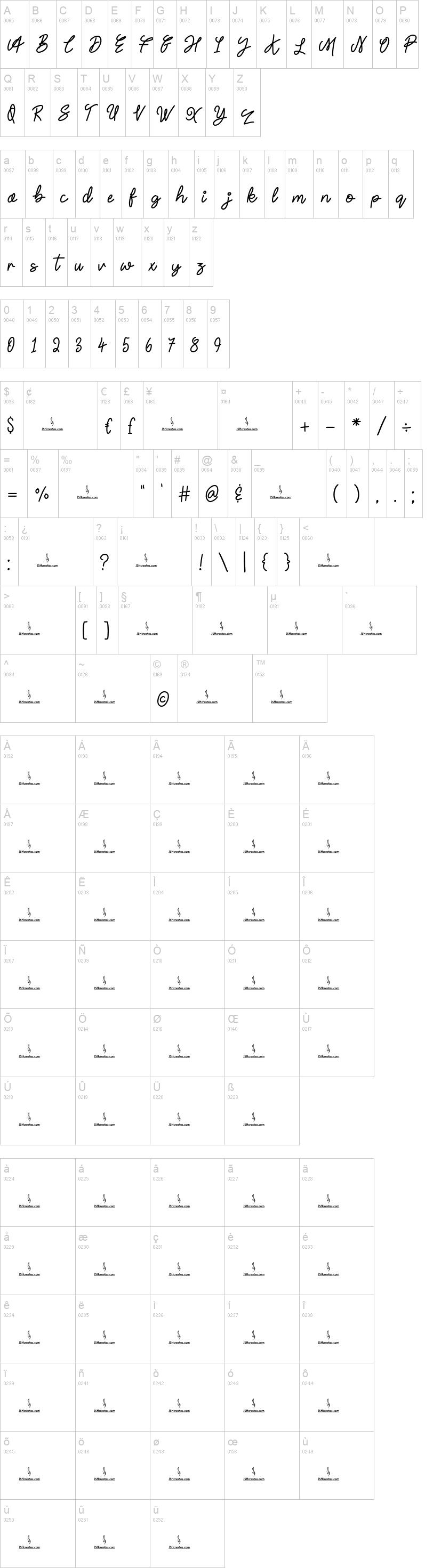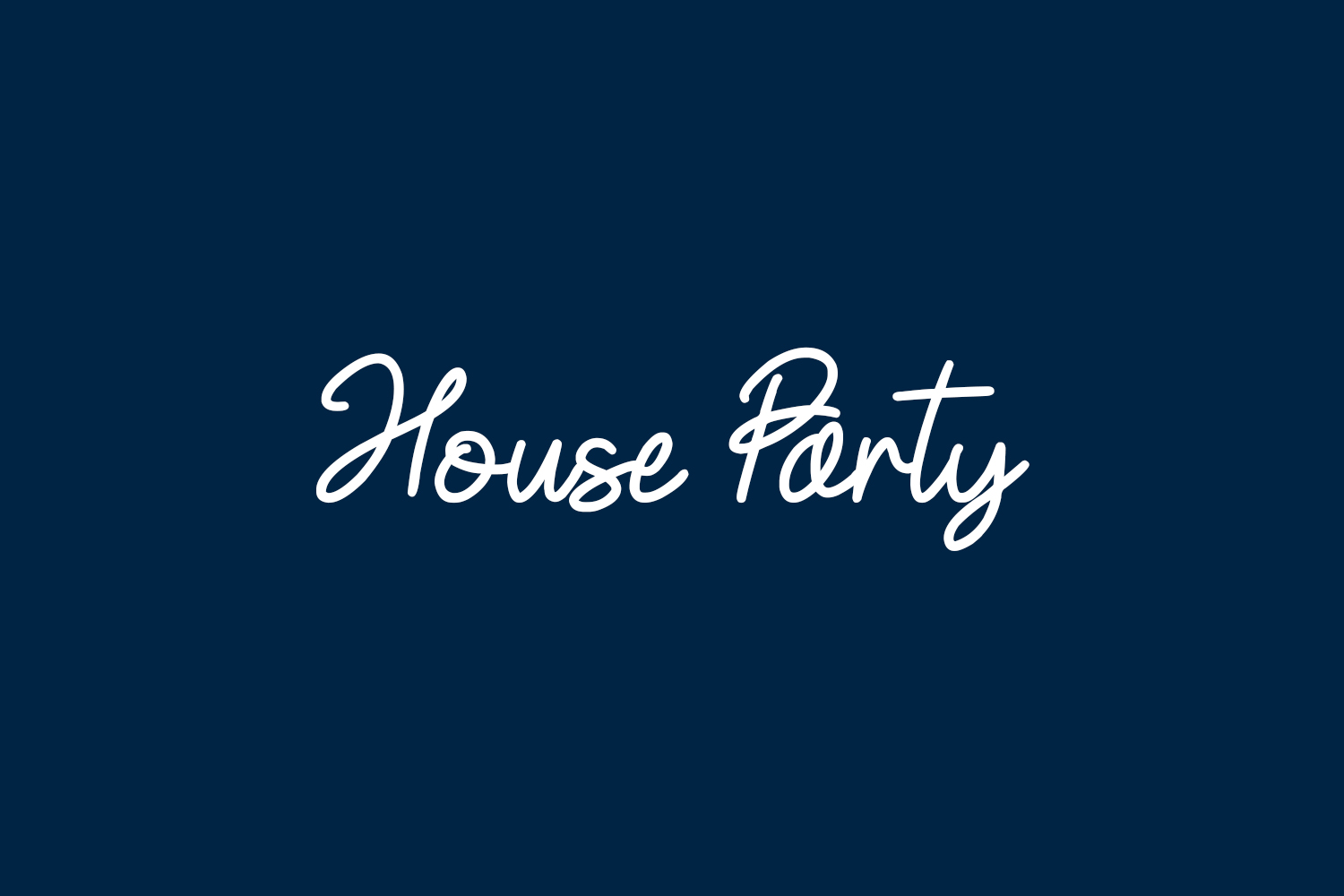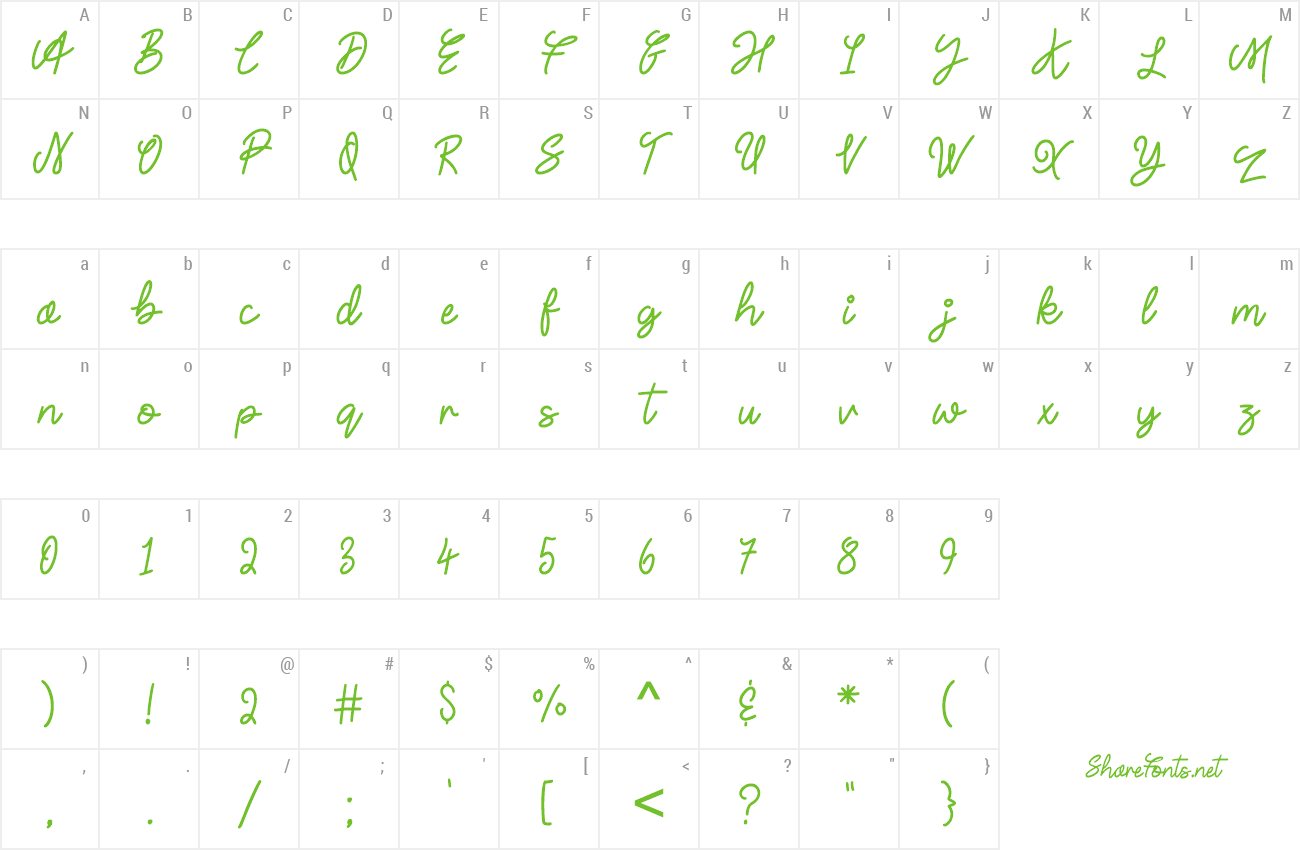
House Party Font
House Party Font - From bold and vibrant to quirky and stylish, find. Web house party font is a light handwritten font designed by jonathan s. You may use this font 'house. Web download party fonts for free in the highest quality available. Every font is free to download! Web house party is a free font for personal use created by jonathan s. Click to find the best 1,010 free fonts in the party style. House party is a script type font that can be used on any. Fontget has the largest selection of party fonts and the best party.
Fontget has the largest selection of party fonts and the best party. You may use this font 'house. Web house party is a free font for personal use created by jonathan s. Click to find the best 1,010 free fonts in the party style. House party is a script type font that can be used on any. Web download party fonts for free in the highest quality available. Every font is free to download! Web house party font is a light handwritten font designed by jonathan s. From bold and vibrant to quirky and stylish, find.
You may use this font 'house. Web house party is a free font for personal use created by jonathan s. Click to find the best 1,010 free fonts in the party style. Web download party fonts for free in the highest quality available. Every font is free to download! Web house party font is a light handwritten font designed by jonathan s. House party is a script type font that can be used on any. Fontget has the largest selection of party fonts and the best party. From bold and vibrant to quirky and stylish, find.
House Party Font
Click to find the best 1,010 free fonts in the party style. Web house party is a free font for personal use created by jonathan s. From bold and vibrant to quirky and stylish, find. House party is a script type font that can be used on any. Web house party font is a light handwritten font designed by jonathan.
Click to find the best 1,010 free fonts in the party style. From bold and vibrant to quirky and stylish, find. Web house party font is a light handwritten font designed by jonathan s. House party is a script type font that can be used on any. Web house party is a free font for personal use created by jonathan.
House Party free font
From bold and vibrant to quirky and stylish, find. Web house party font is a light handwritten font designed by jonathan s. Every font is free to download! Web download party fonts for free in the highest quality available. House party is a script type font that can be used on any.
You may use this font 'house. House party is a script type font that can be used on any. From bold and vibrant to quirky and stylish, find. Web house party font is a light handwritten font designed by jonathan s. Web house party is a free font for personal use created by jonathan s.
House party is a script type font that can be used on any. Every font is free to download! Web house party font is a light handwritten font designed by jonathan s. Web house party is a free font for personal use created by jonathan s. You may use this font 'house.
Fontget has the largest selection of party fonts and the best party. Web house party is a free font for personal use created by jonathan s. House party is a script type font that can be used on any. Web download party fonts for free in the highest quality available. Click to find the best 1,010 free fonts in the.
House Party Font Jonathan S. Harris FontSpace
From bold and vibrant to quirky and stylish, find. Web house party is a free font for personal use created by jonathan s. House party is a script type font that can be used on any. Click to find the best 1,010 free fonts in the party style. Web house party font is a light handwritten font designed by jonathan.
House party is a script type font that can be used on any. Web house party font is a light handwritten font designed by jonathan s. Web download party fonts for free in the highest quality available. From bold and vibrant to quirky and stylish, find. Fontget has the largest selection of party fonts and the best party.
House Party font by Jonathan S. Harris FontRiver
Every font is free to download! Fontget has the largest selection of party fonts and the best party. Web house party is a free font for personal use created by jonathan s. From bold and vibrant to quirky and stylish, find. House party is a script type font that can be used on any.
House Party free font
Web download party fonts for free in the highest quality available. Web house party is a free font for personal use created by jonathan s. Web house party font is a light handwritten font designed by jonathan s. Click to find the best 1,010 free fonts in the party style. From bold and vibrant to quirky and stylish, find.
House Party Is A Script Type Font That Can Be Used On Any.
Web house party is a free font for personal use created by jonathan s. Every font is free to download! You may use this font 'house. Web house party font is a light handwritten font designed by jonathan s.